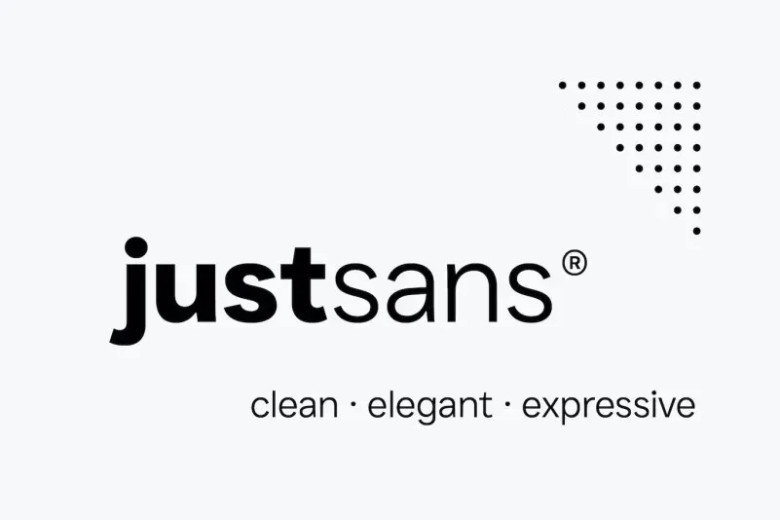
JUST Sans Font
JUST Sans is a geometric grotesque sans serif font that was created to connect that done with modern appeal to blend with modern needs. Designed as a professional modern geometric sans serif, JUST Sans is both serious and friendly, neutral but warmly expressive, technical but not overt, and familiar but unique enough to stand on its own.
With open-airy characters and a generous width, JUST Sans has an elegant contemporary feel, with sharp angled terminals that give it grip and make it so expressively endearing. With a clean, simple, and minimal aesthetic, JUST Sans is a functional workhorse with 7 weights, complete Latin extended language support, precise hand-adjusted kerning, and a variable version for maximum versatility.
JUST Sans includes hand-hinted web fonts optimized for clear, legible text on screens making JUST Sans perfect for the web as well as logos, branding, headlines, paragraph text, UI, signage, packaging, posters, and industries rooted in technology, new media, architecture, fashion & design.